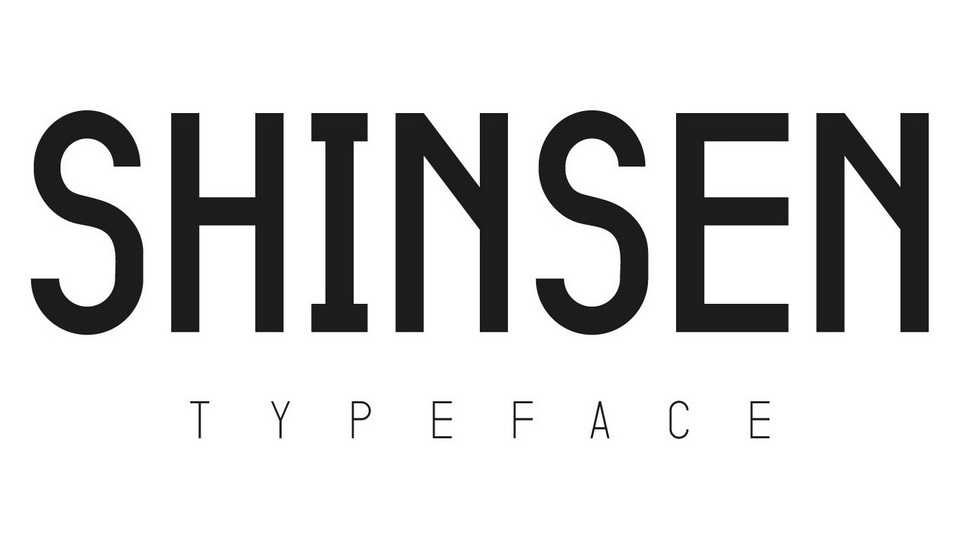
Download Shinsen typeface, a geometric sans serif font family in three weights that has an aesthetic and industrial style. Shinsen comes with three weights and can be great for titles, subtitles, caption for magazines, posters and other display use.